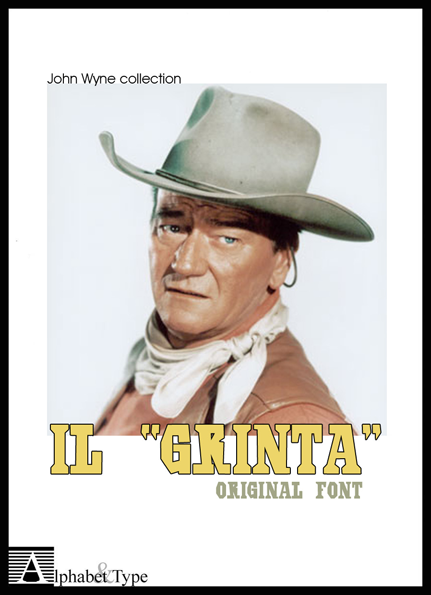
Preview and download Il Grinta Font. Created by Alphabet & Type in Fancy Western styles with 100% Free license.
TRUE GRIT font: directly from the Best movie by Henry Hathaway, with John Wyne, the original font for all lovers. |